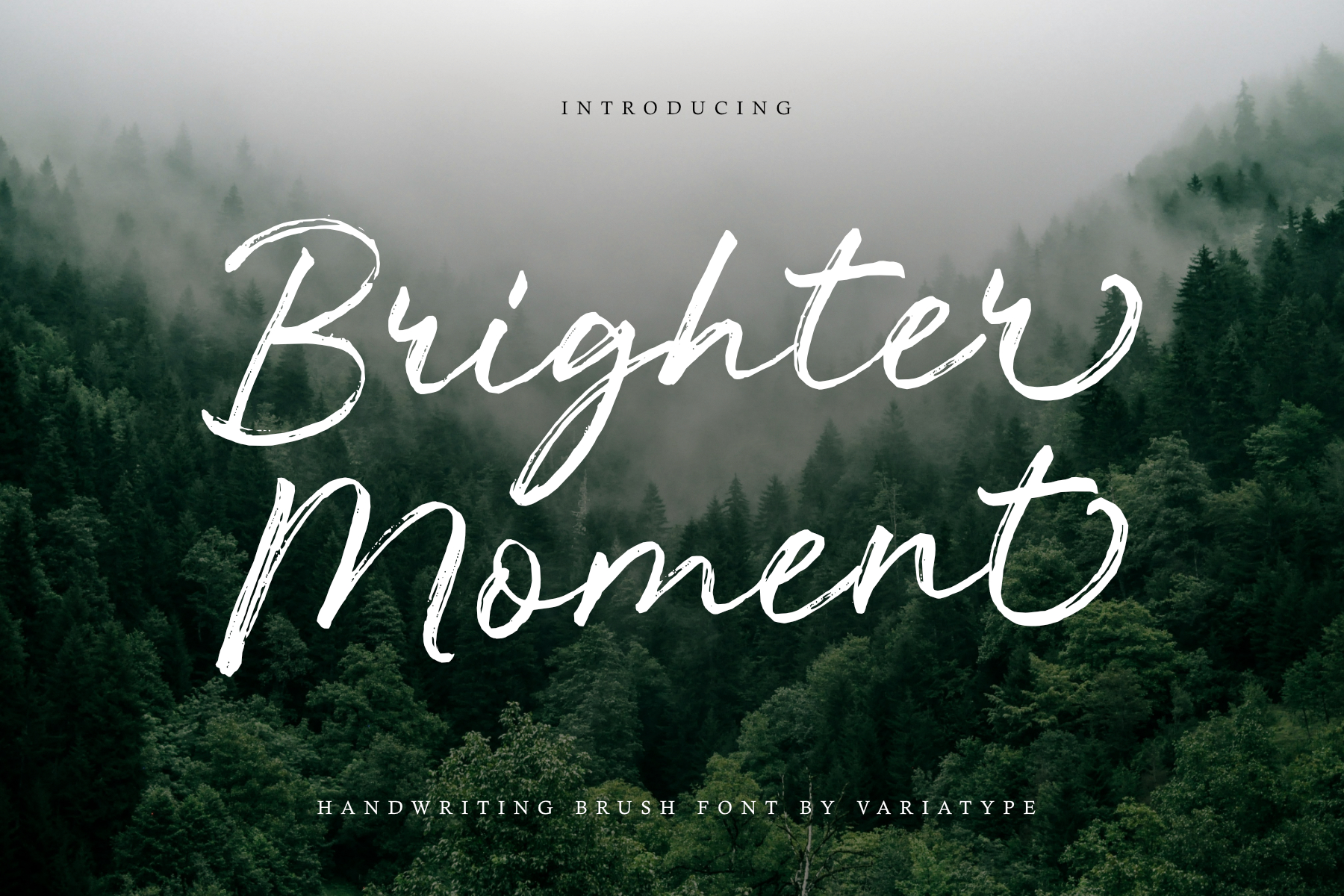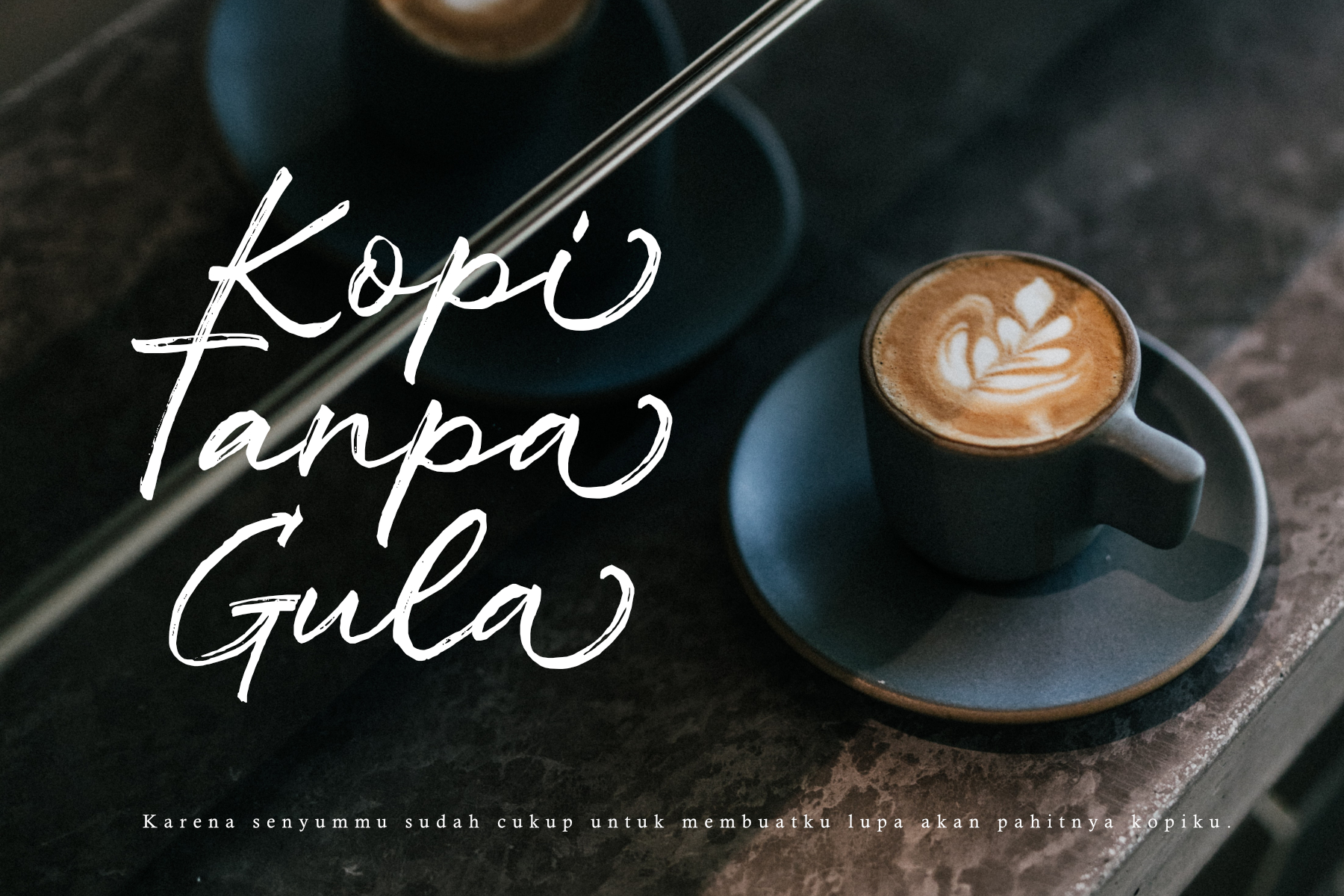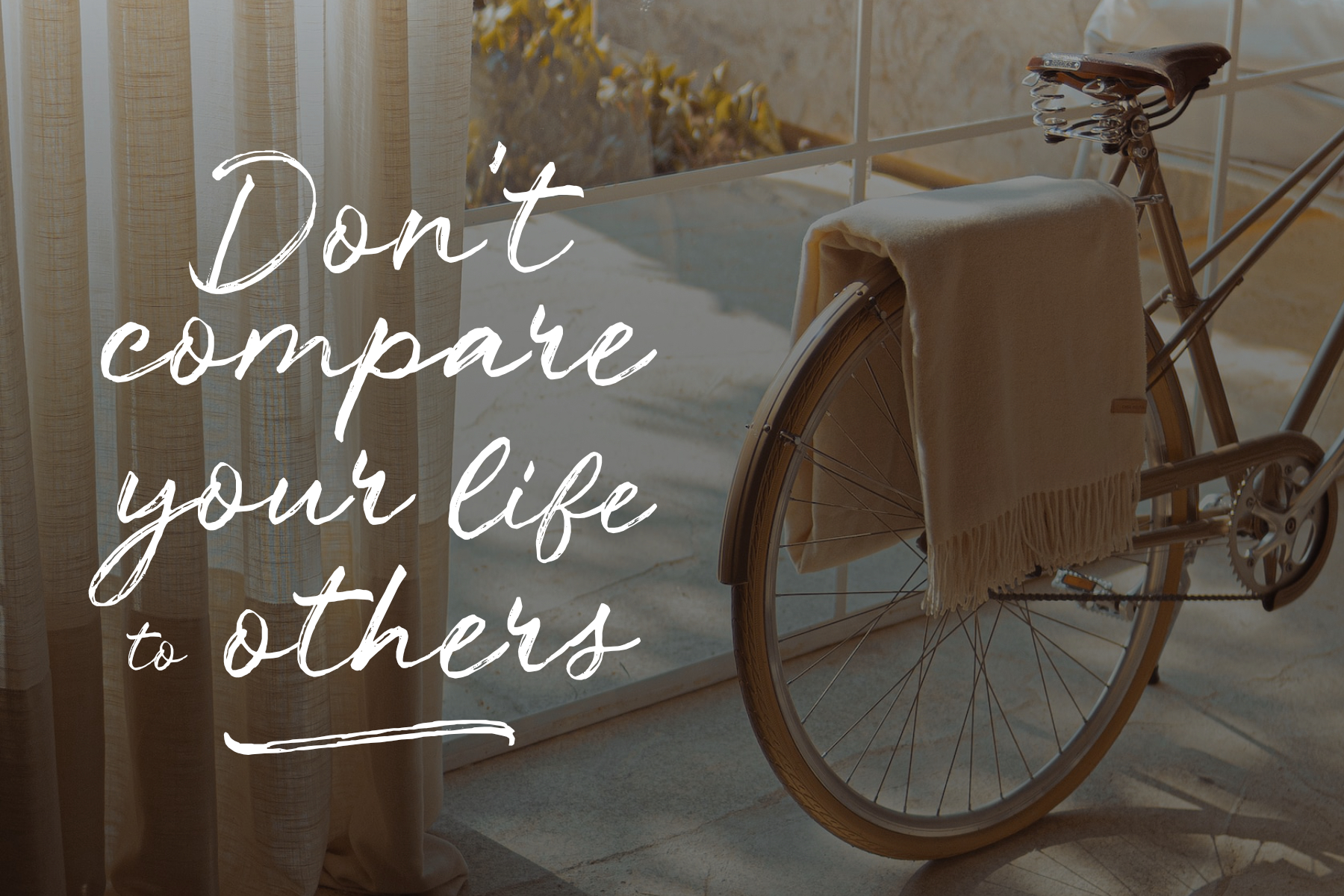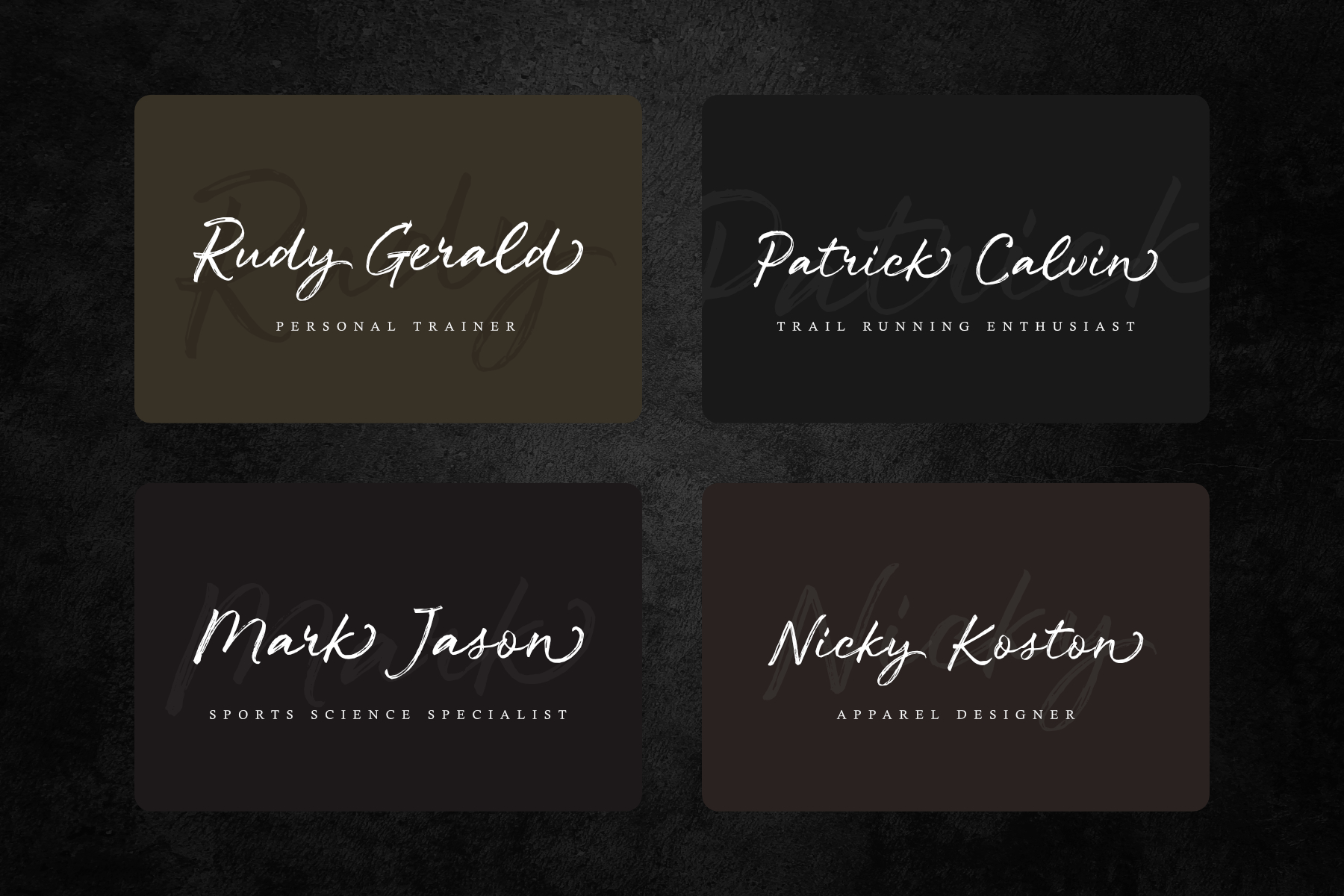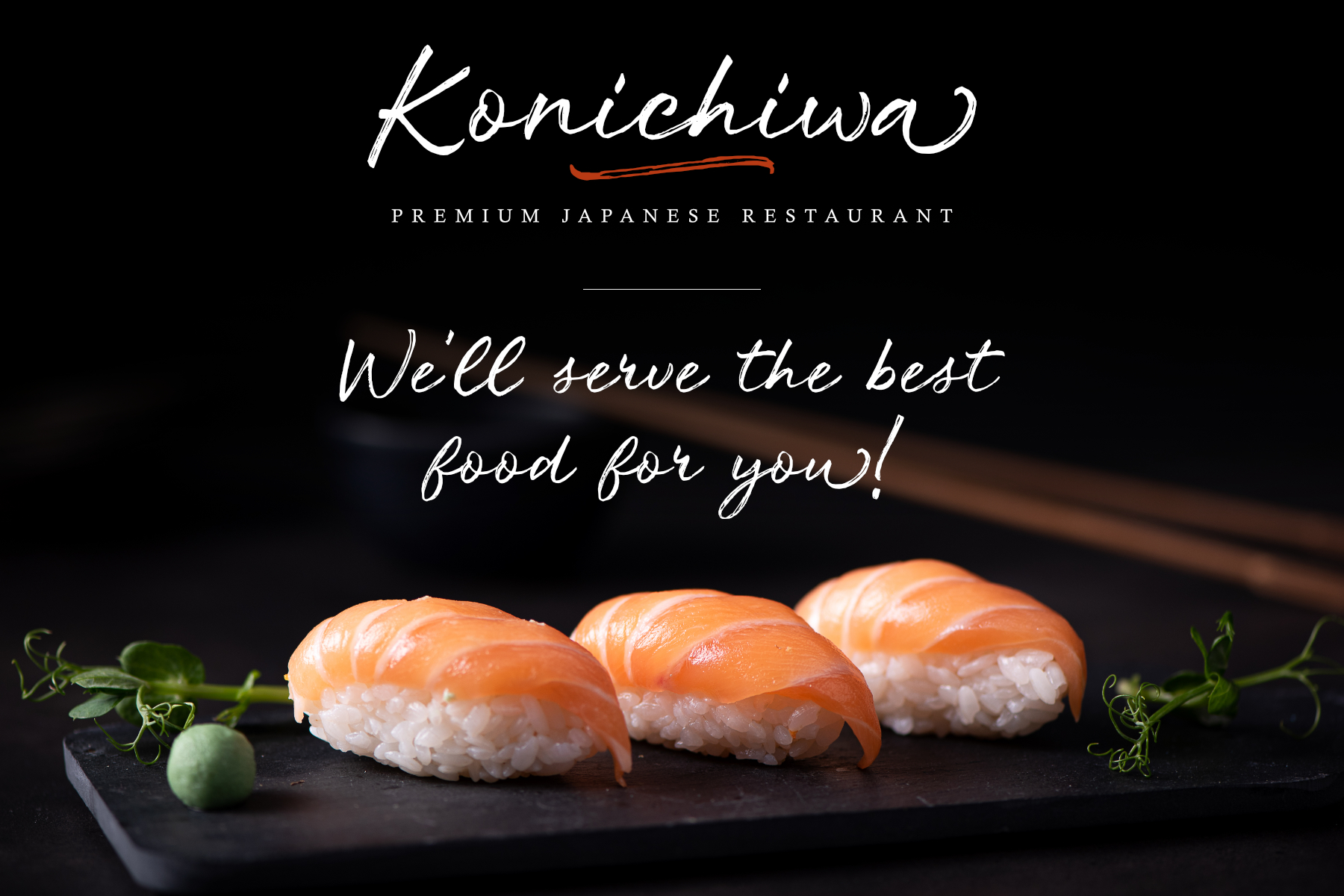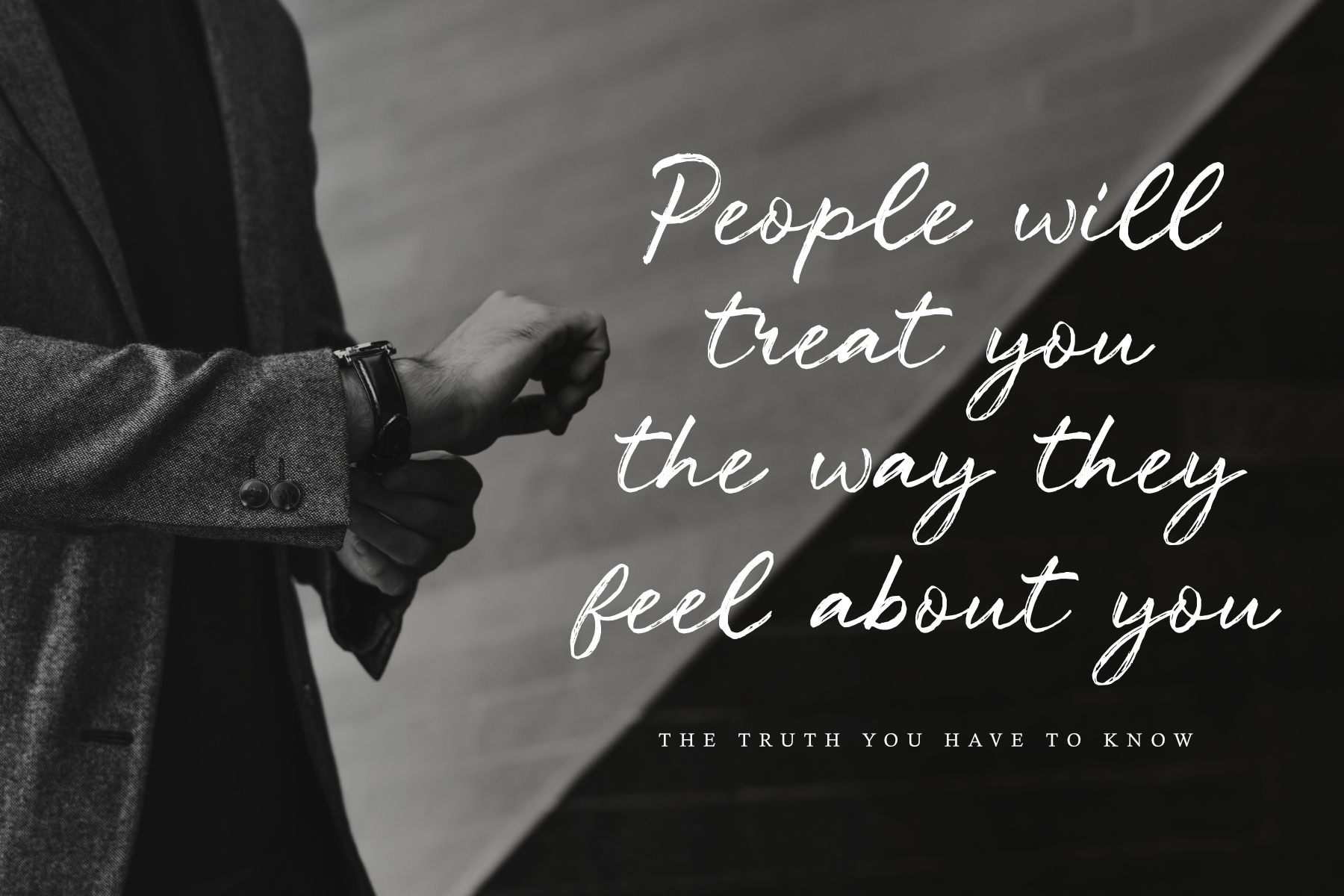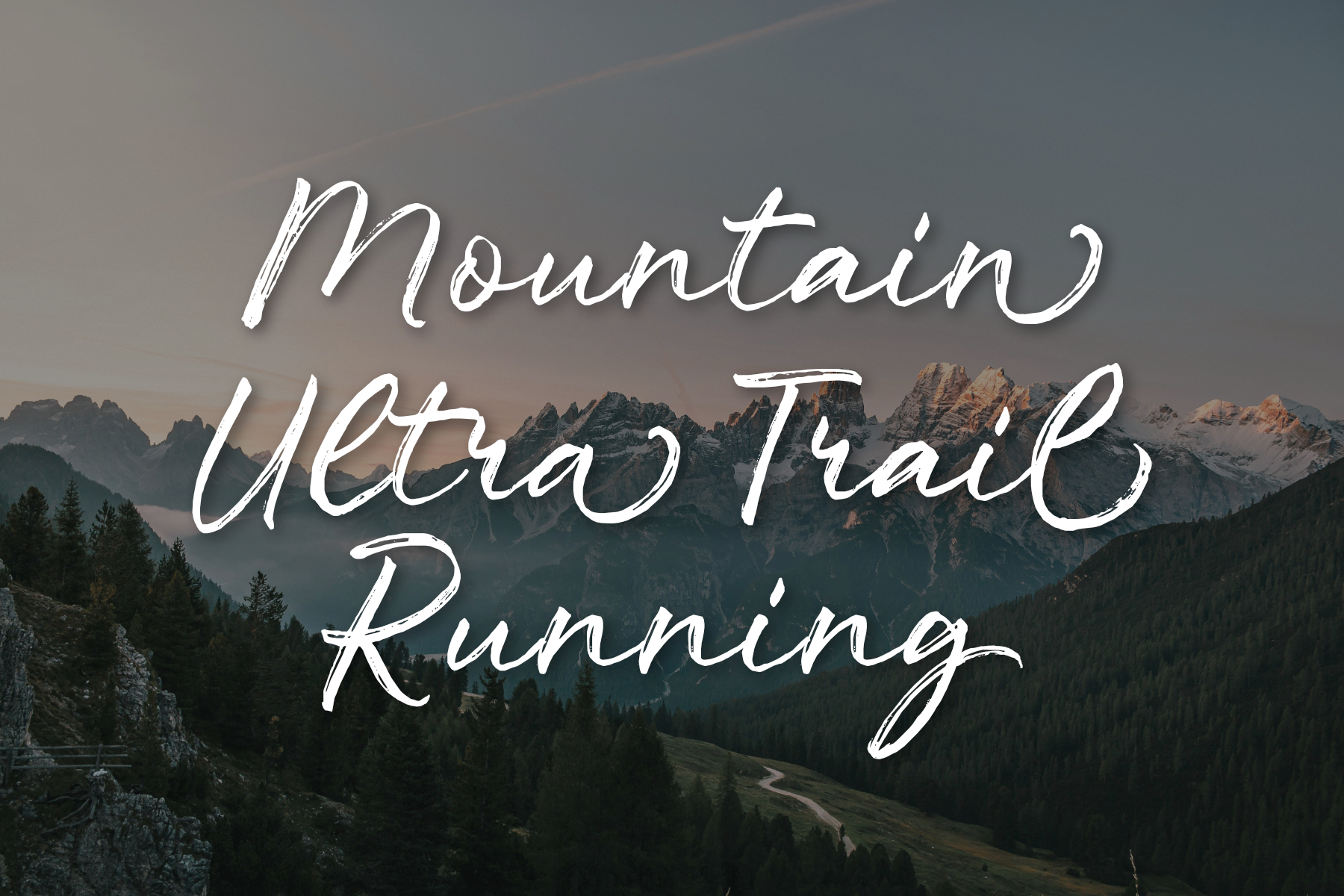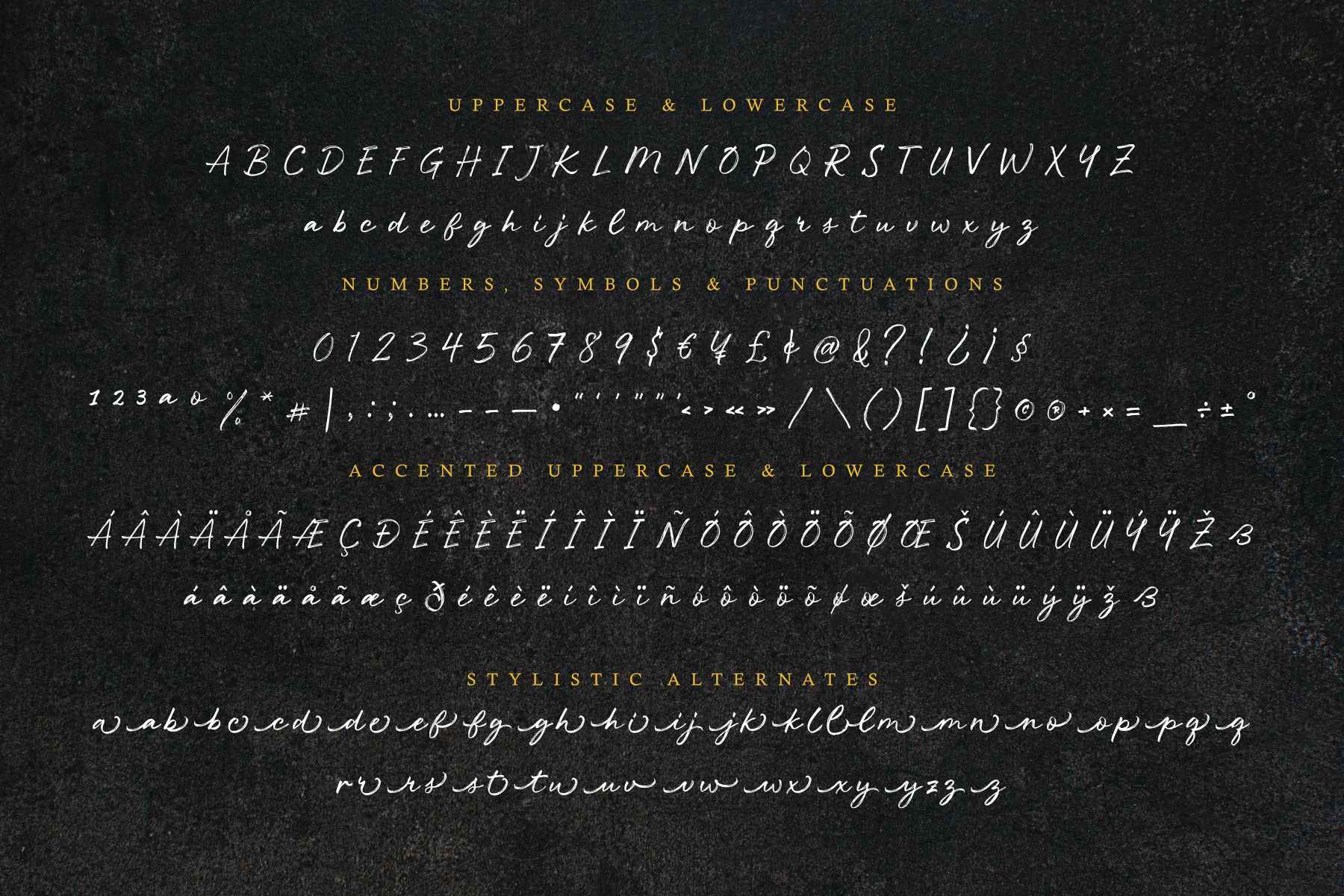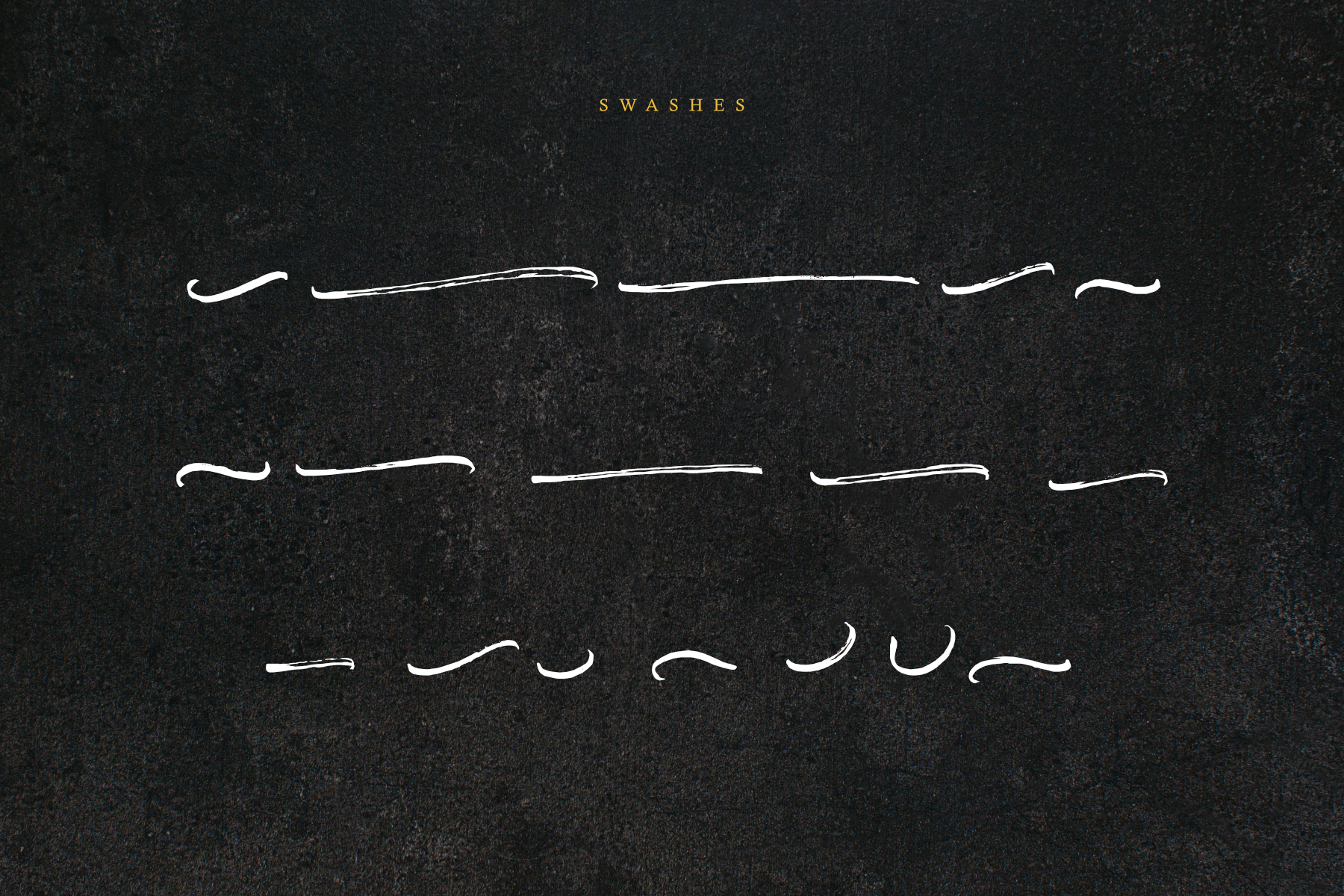
Brighter Moment
DESCRIPTION
Brighter Moment is an authentic handwritten brush script that captures the energy of real ink on paper, bringing warmth, confidence, and natural movement into every word. Designed with rich brush textures and expressive strokes, it gives brands, creative studios, and marketing teams the freedom to build visuals that feel genuine, memorable, and full of character. Whether used for branding, packaging, advertising, social campaigns, editorial headlines, outdoor-inspired products, or lifestyle collections, Brighter Moment delivers an organic handcrafted presence that helps every message stand out with purpose.
FONT FEATURES
- Additional Accents
- 68Languages
- Stylistic Alternates
- Kerning
- Swashes